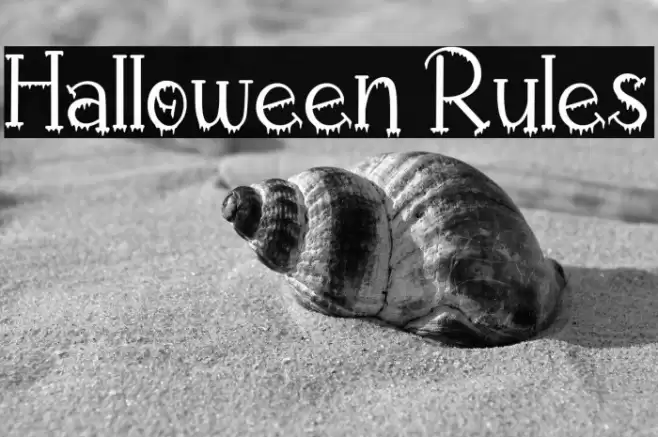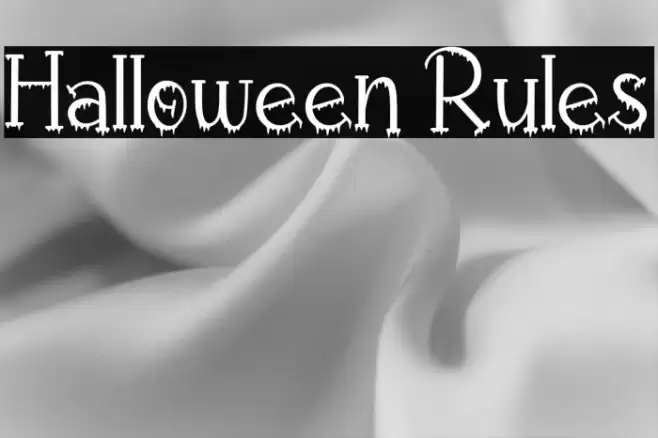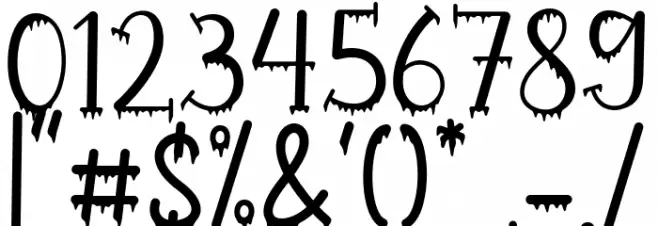
Halloween Rules Font
Halloween Rules Description
This font features a playful and spooky design, perfect for Halloween-themed projects. The characters have a unique, jagged appearance with irregular edges that resemble dripping or melting effects, adding a touch of eeriness. The uppercase and lowercase letters maintain a consistent style, with elongated vertical strokes and sharp angles. The numbers and special characters follow the same theme, ensuring a cohesive look across all text elements. This font captures the essence of Halloween with its decorative and thematic style, making it ideal for festive designs.
A spooky, decorative font with jagged, dripping edges, perfect for Halloween themes from Regular fonts.
- Proposed Projects: Ideal for Halloween invitations, party flyers, themed posters, and spooky merchandise designs.